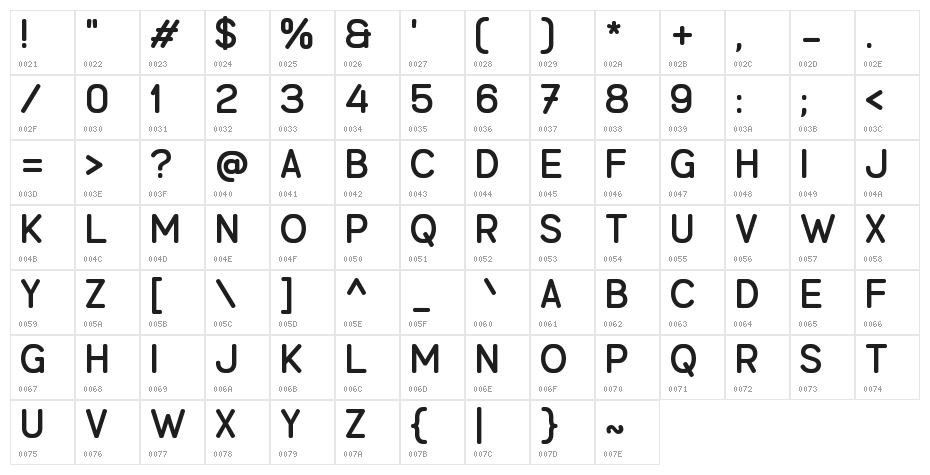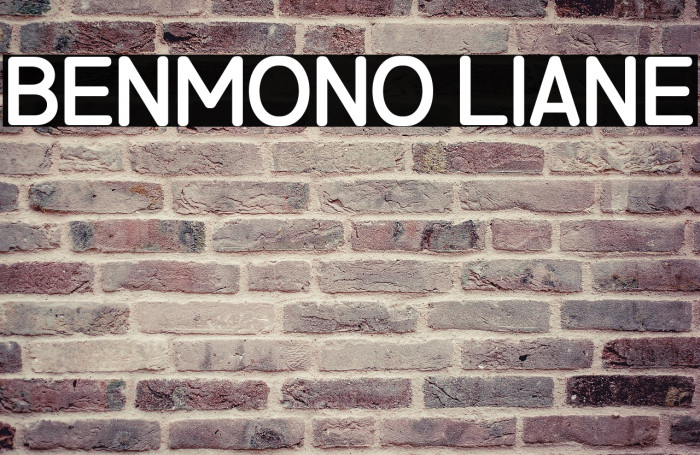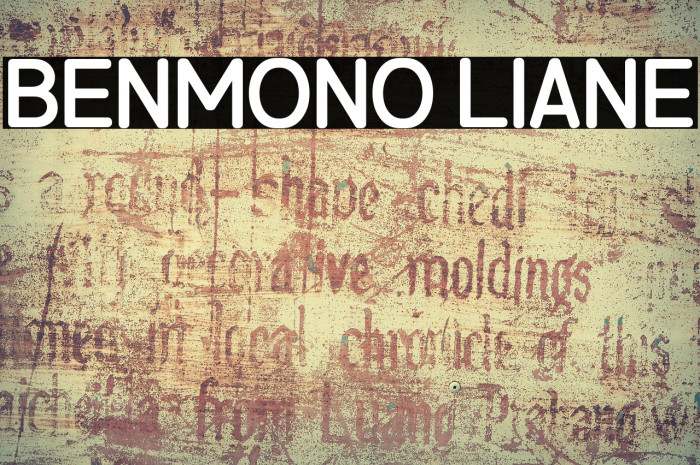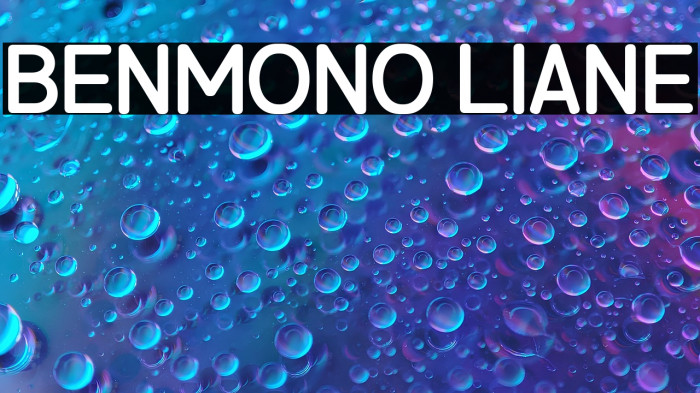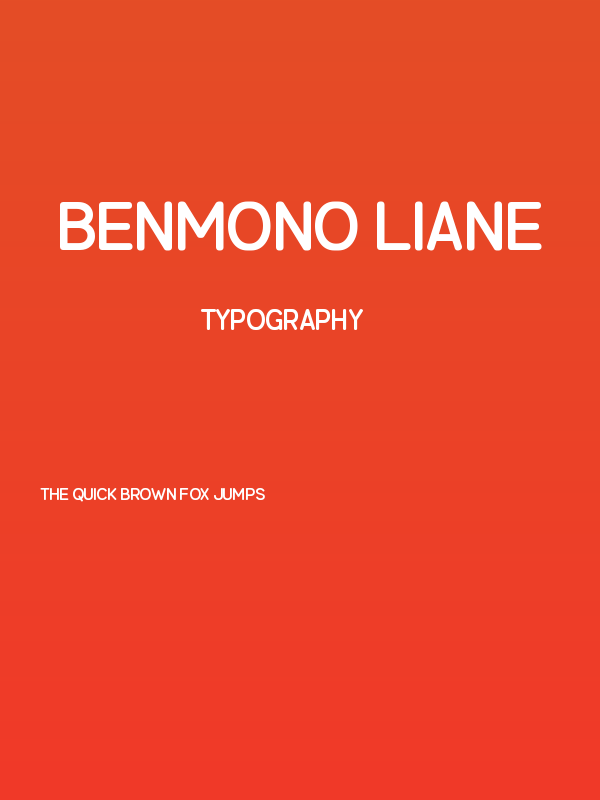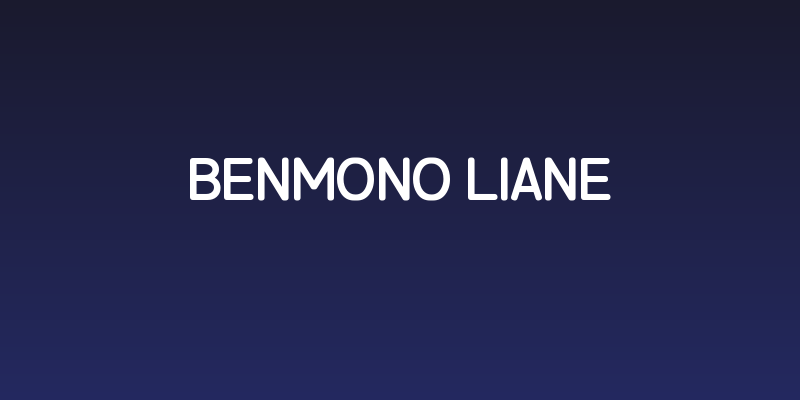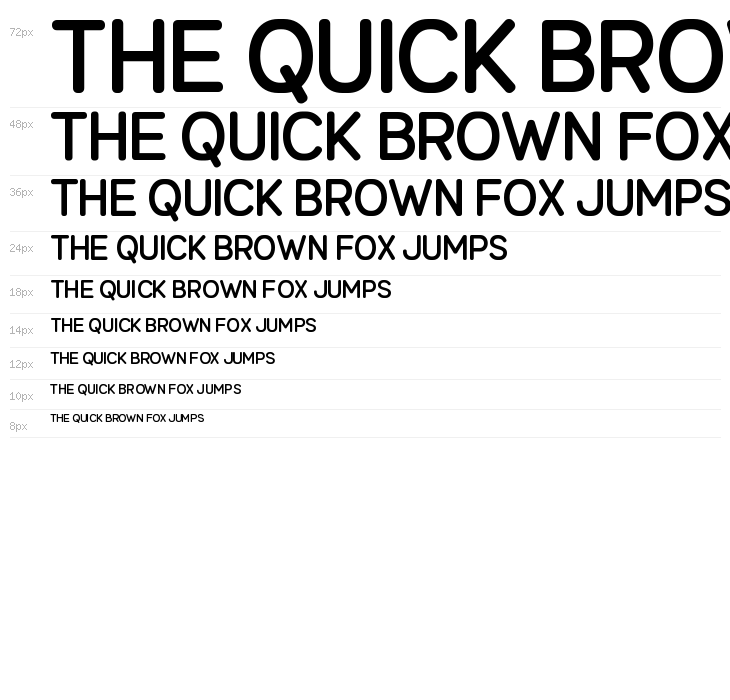
Benmono Liane Font
Benmono Liane Description
This font features a clean and modern design with rounded edges, giving it a friendly and approachable appearance. The characters are evenly spaced, providing a balanced and harmonious look. The uppercase and lowercase letters maintain a consistent style, with a slight geometric influence that adds to its contemporary feel. The numerals are clear and legible, making them suitable for various applications. The special characters are well-integrated, ensuring versatility in design projects.